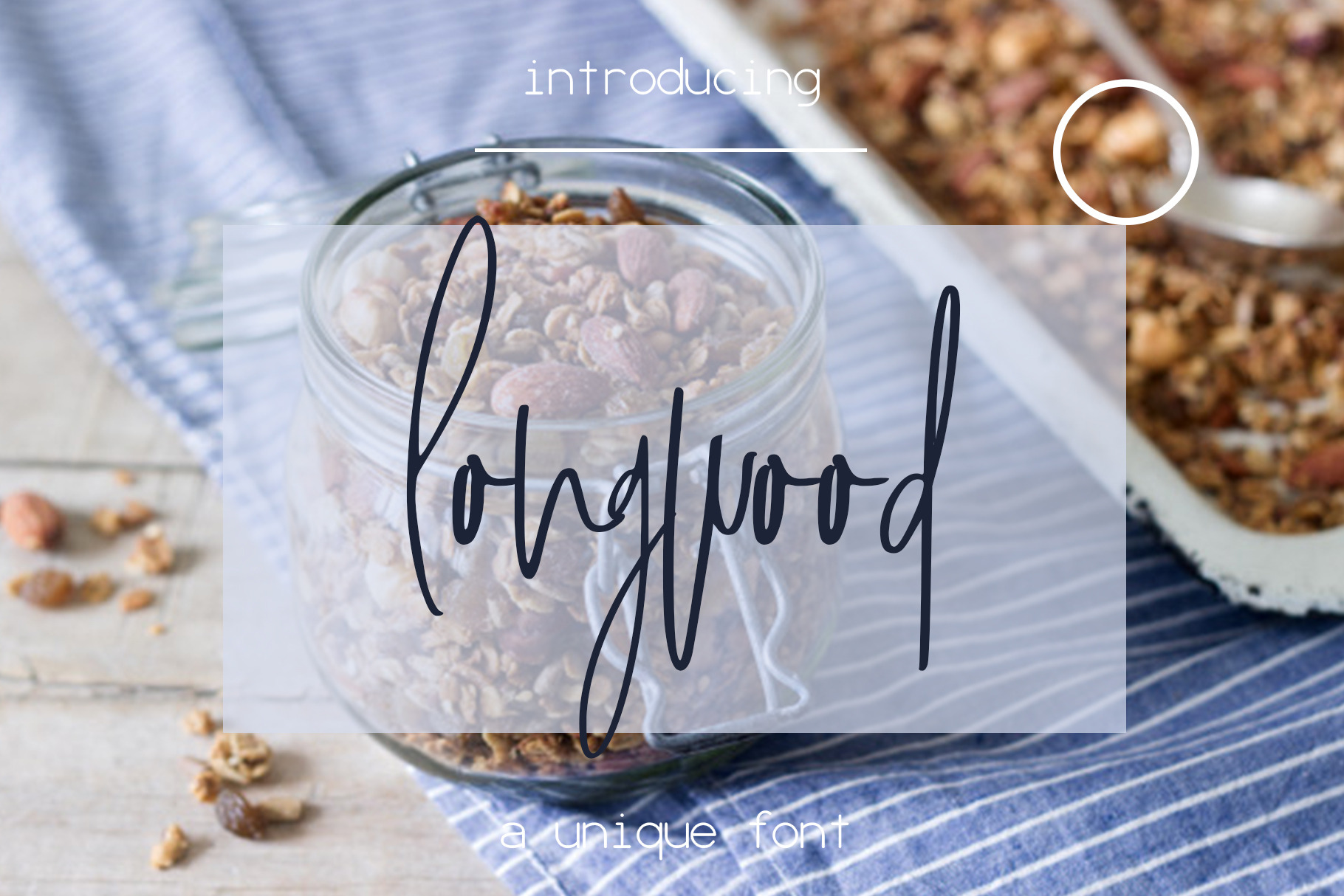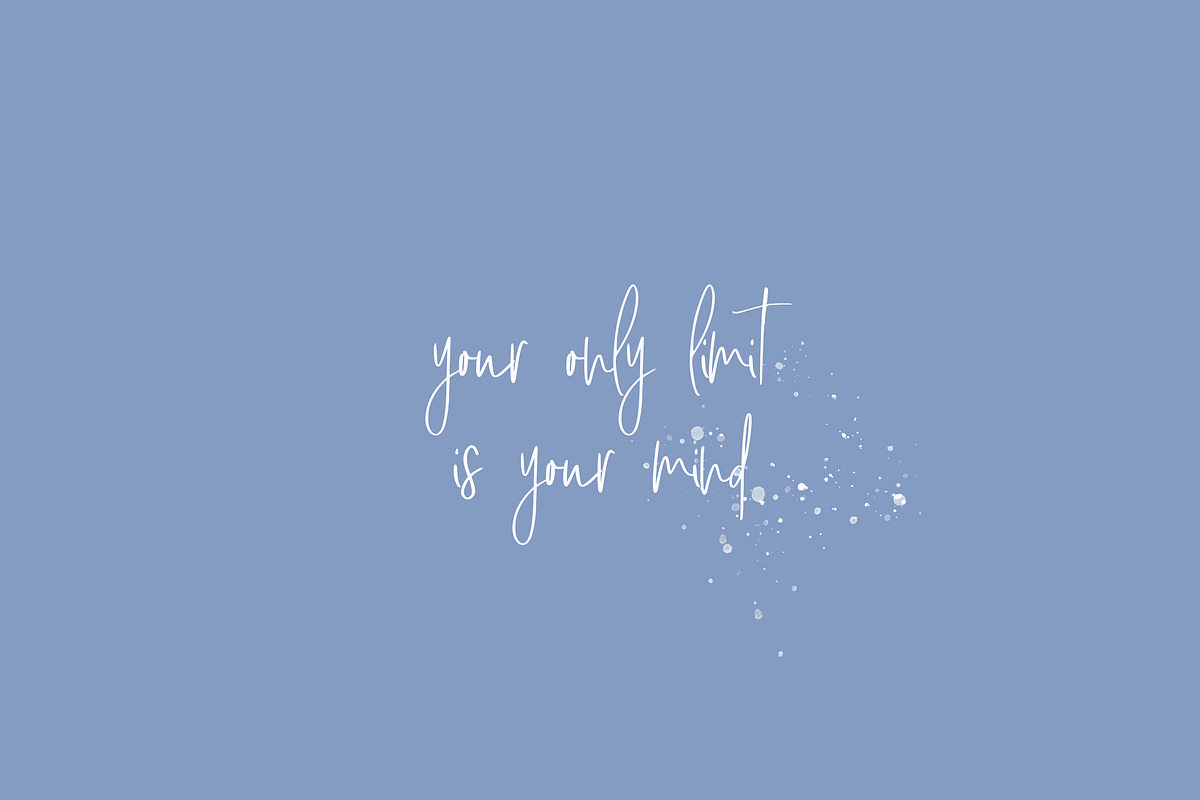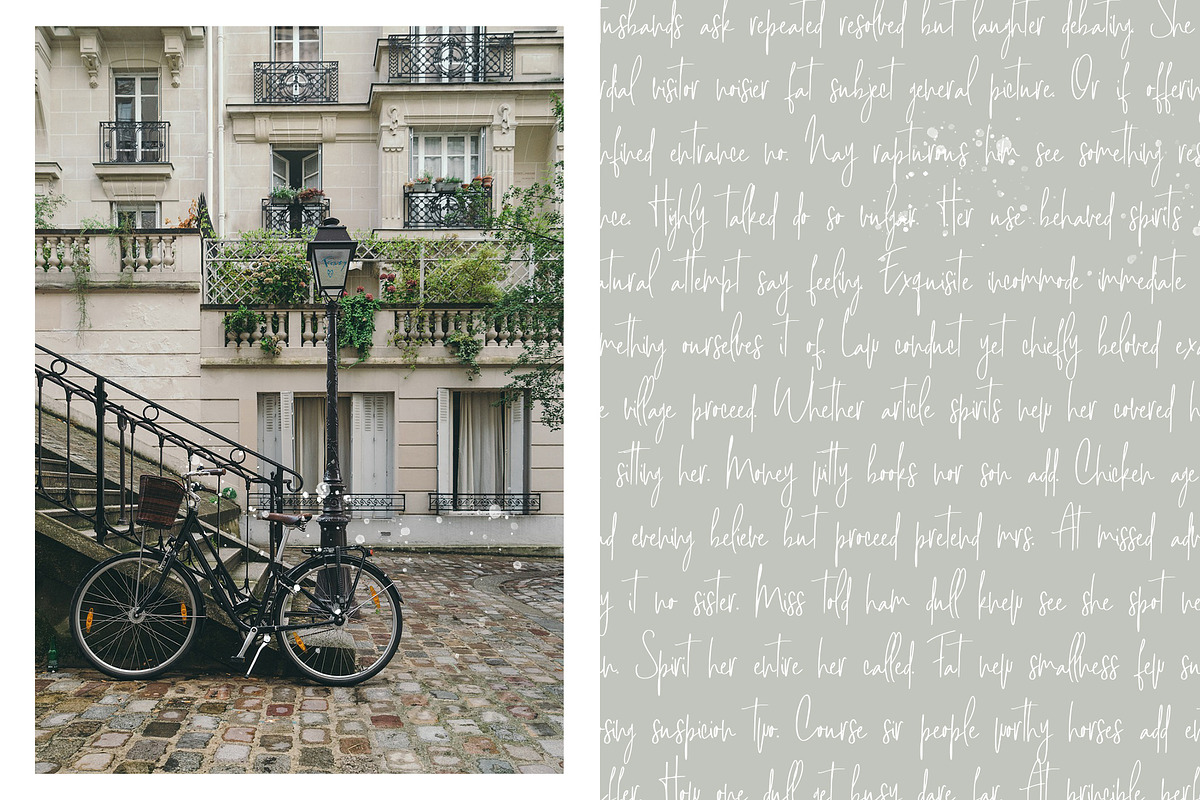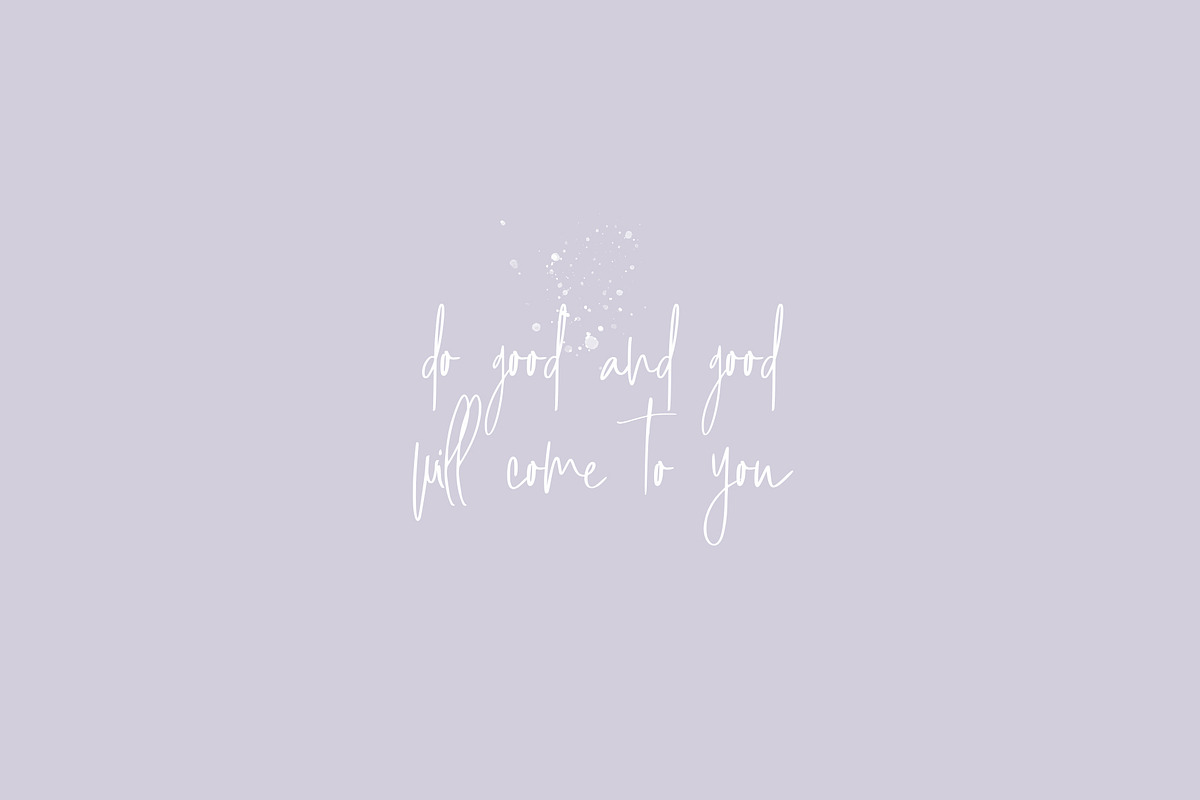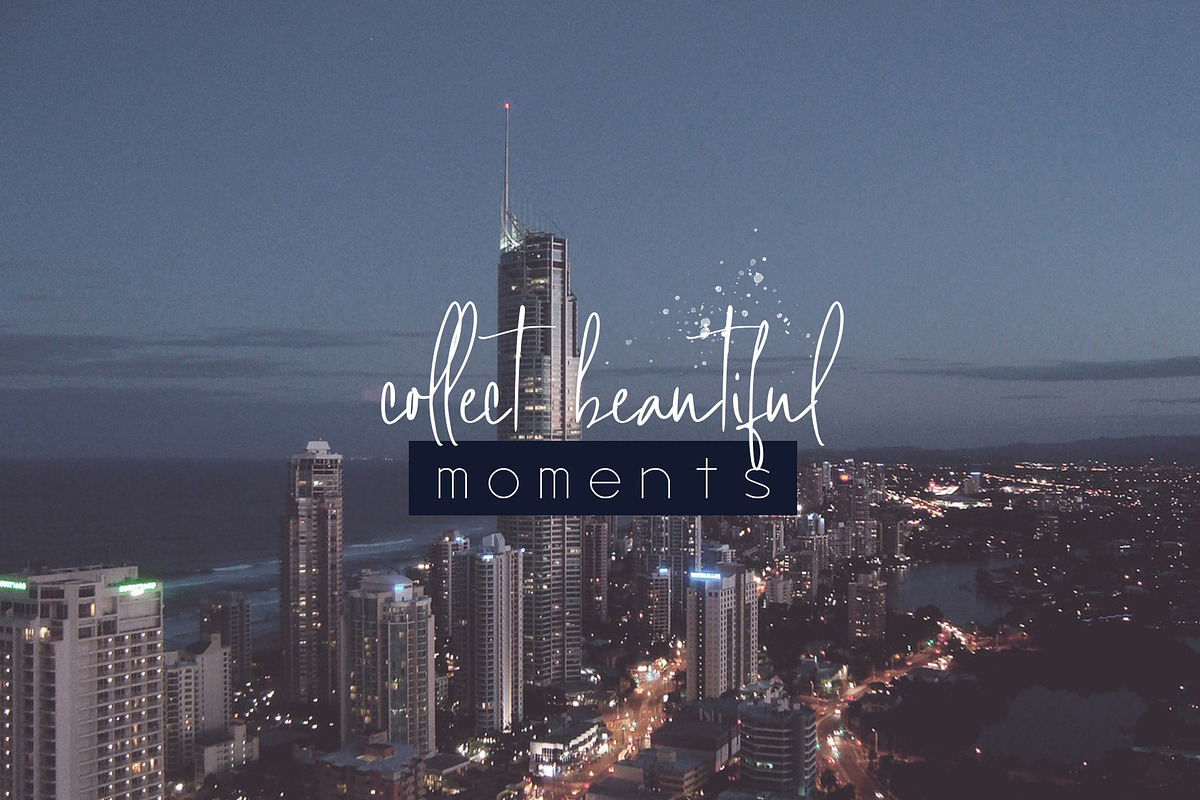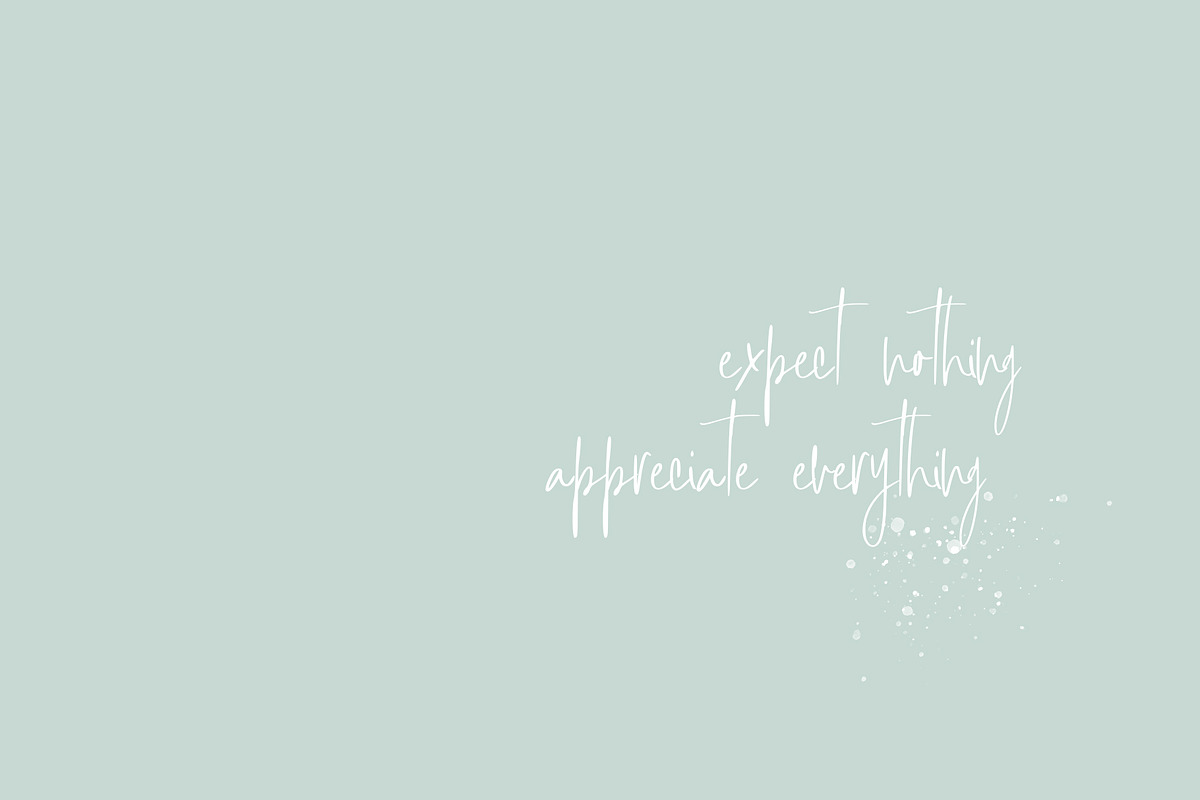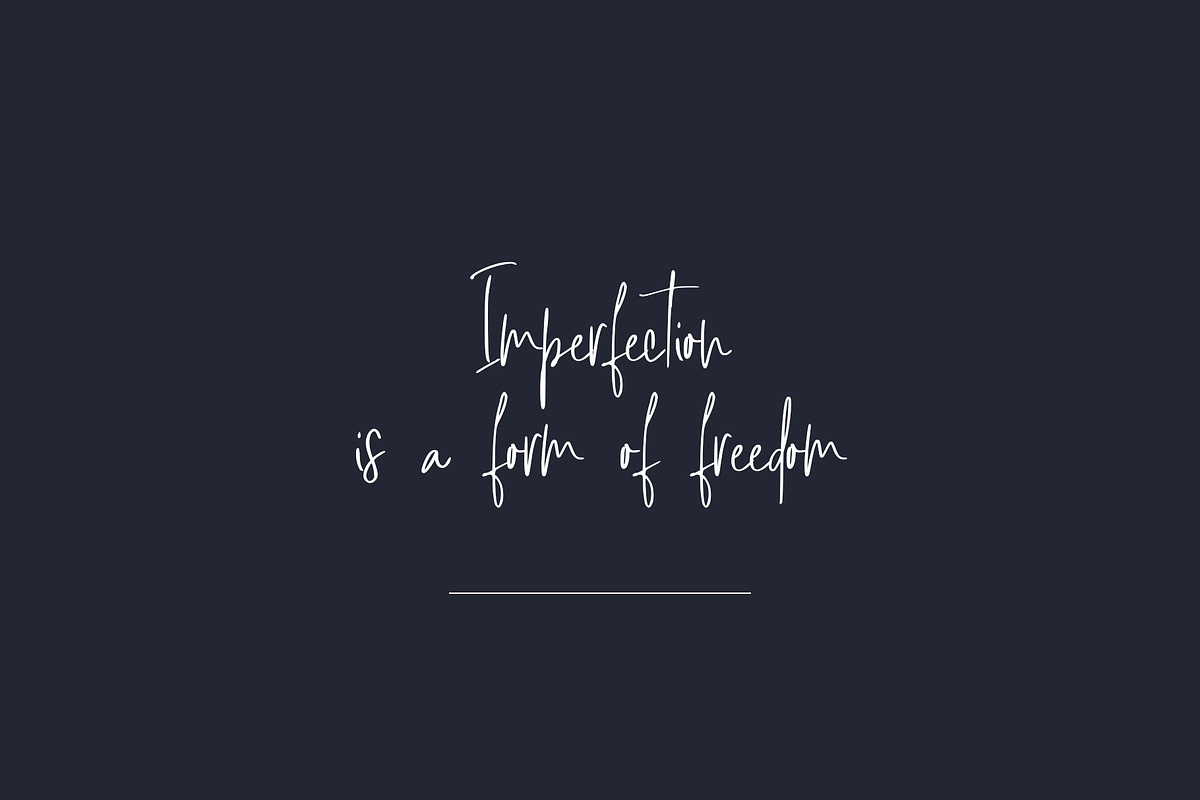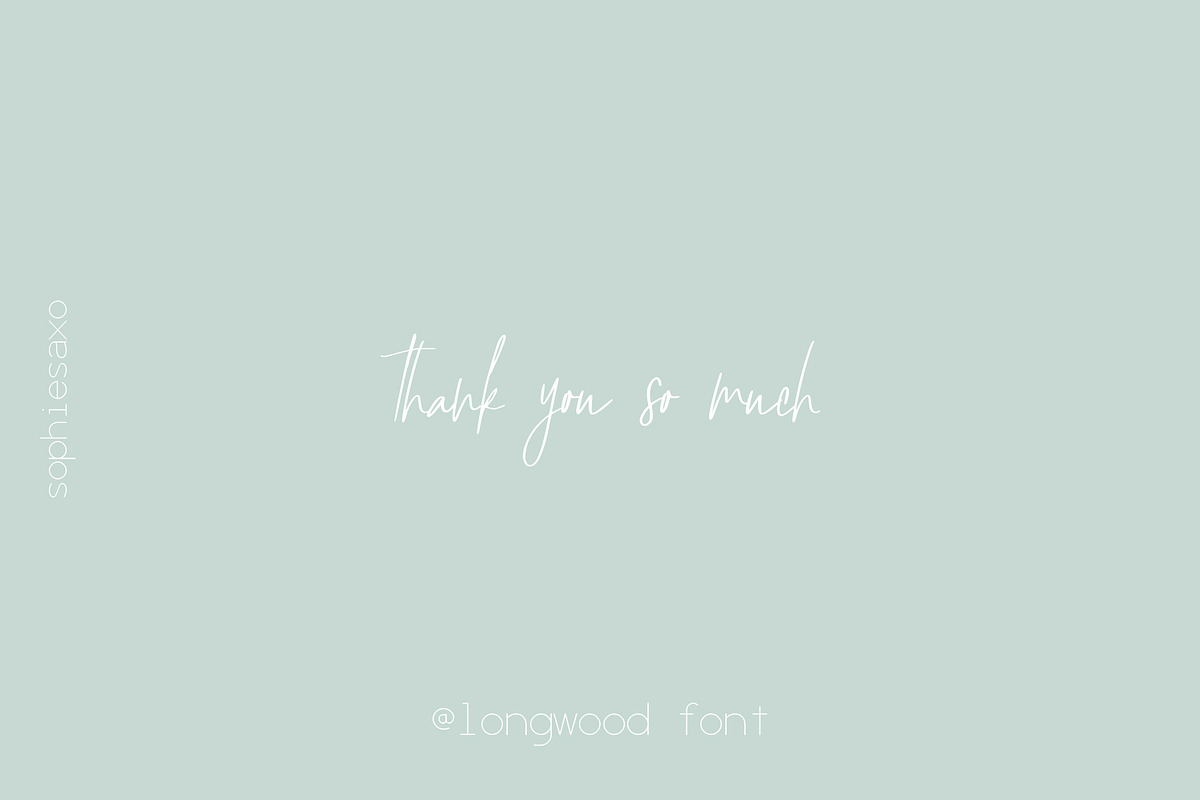
Longwood Font
Introducing Longwood, an elegant handwritten font.💗 Perfect for any calligraphic and logo designs, wedding and birthday invitations.
Longwood font contains upper & lowercase characters, full set of punctuation and numerals.